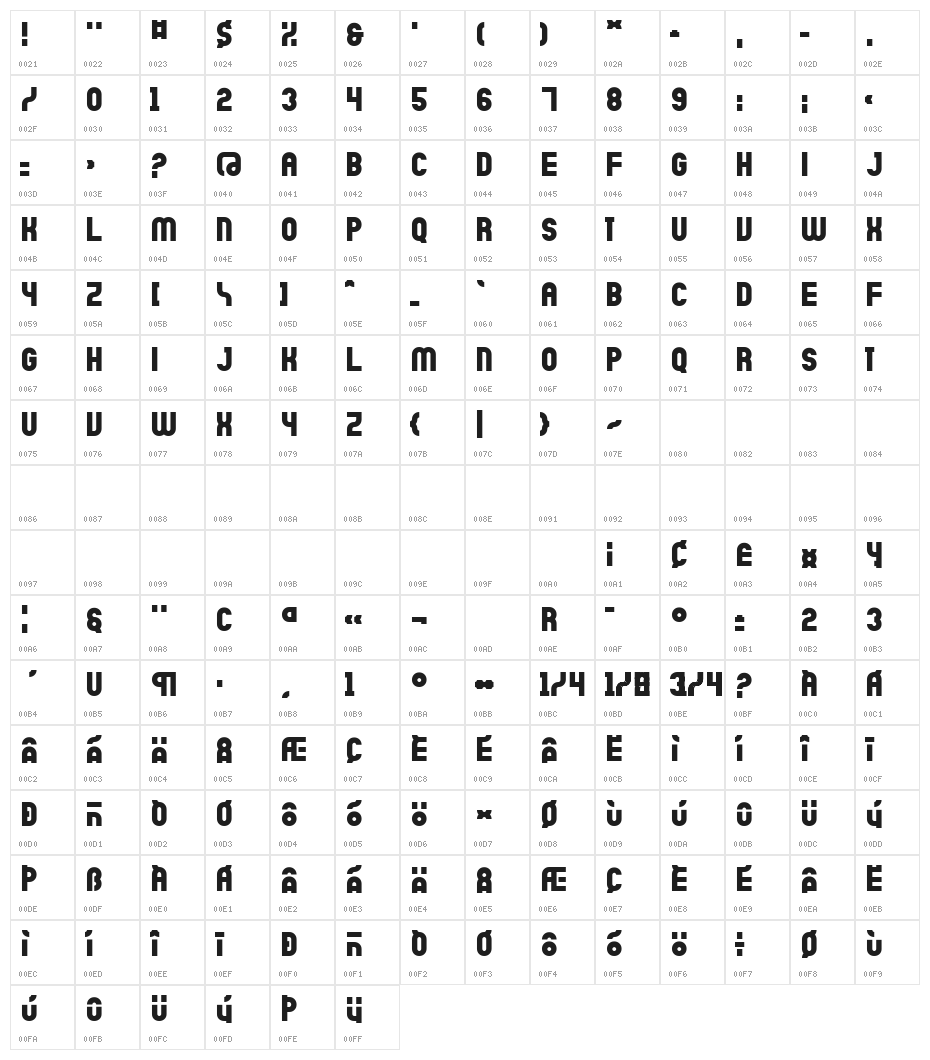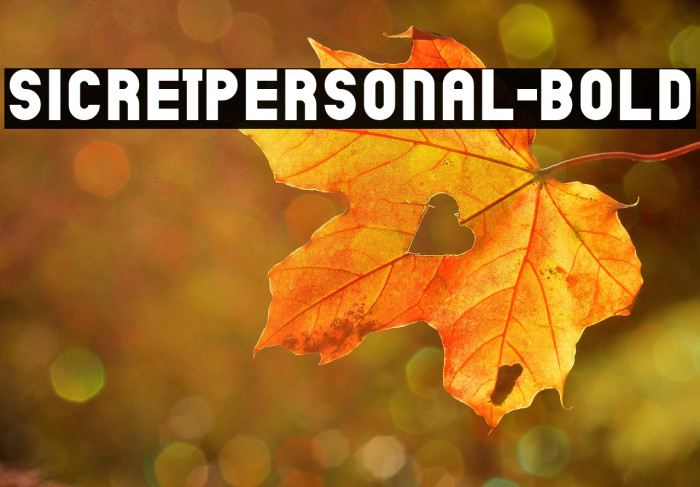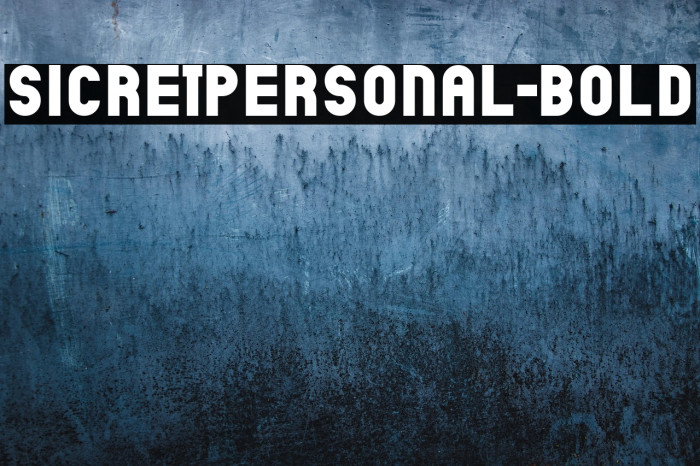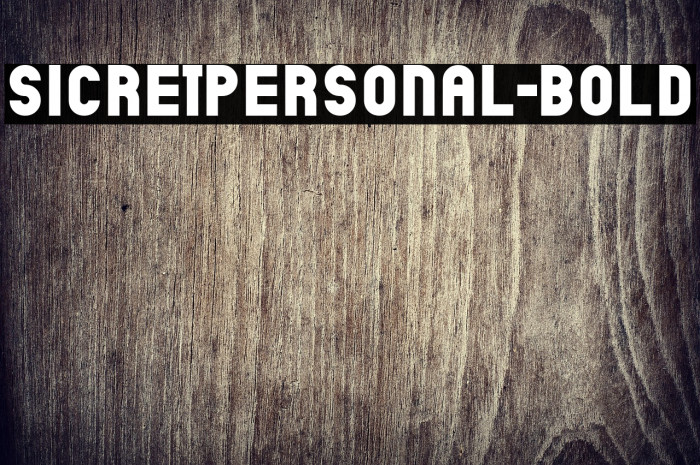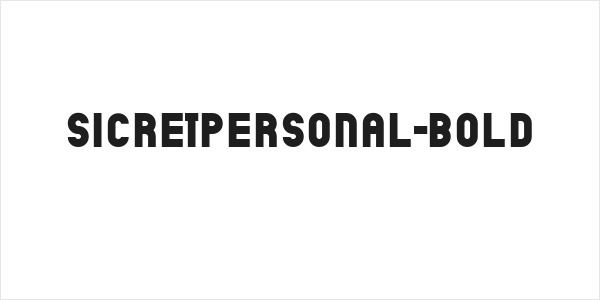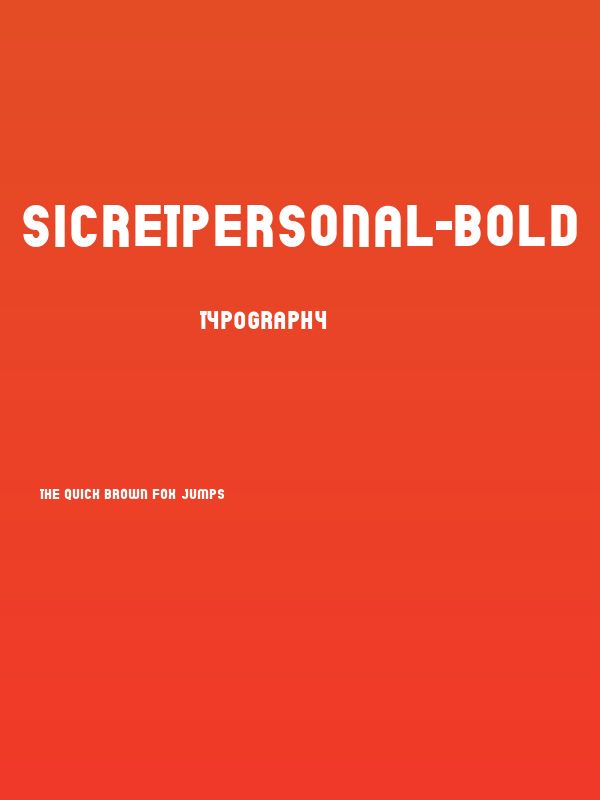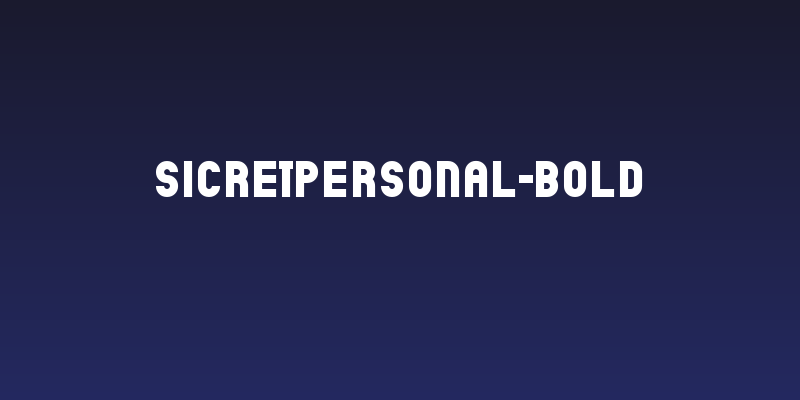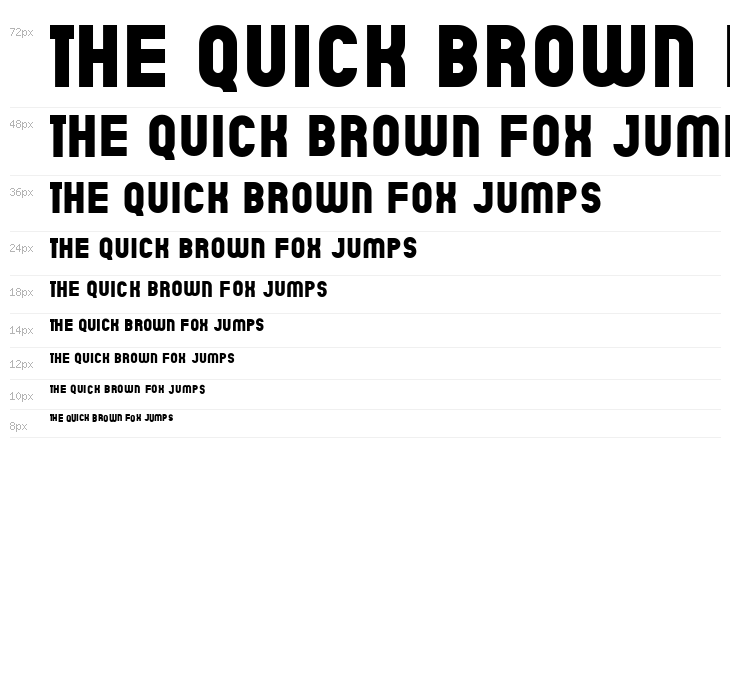
SicretPERSONAL-Bold Font
SicretPERSONAL-Bold Description
This font exhibits a bold and robust design, characterized by its thick, uniform strokes and rounded edges. The uppercase and lowercase letters maintain a consistent width, contributing to a cohesive and structured appearance. The numerals are equally bold, ensuring readability and impact. Special characters are designed with the same boldness, making them stand out effectively. The overall style is modern and assertive, suitable for making strong visual statements.